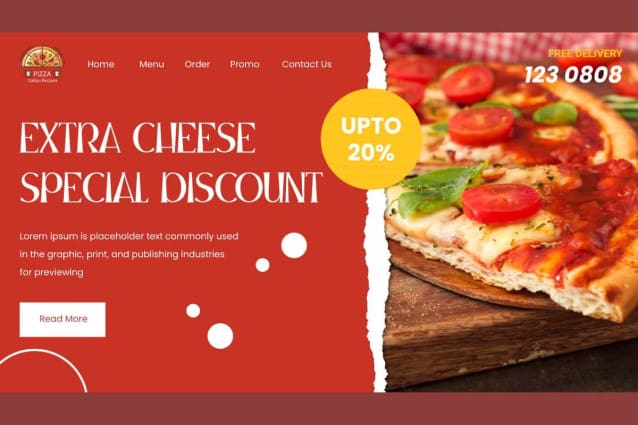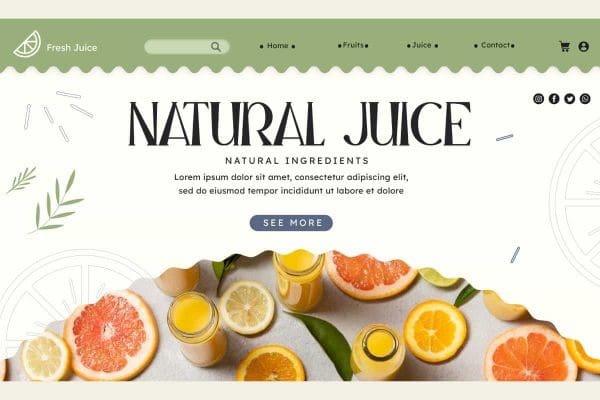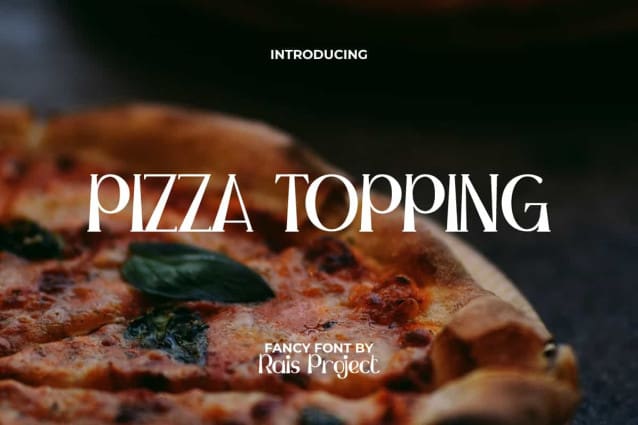
Pizza Topping Font
Pizza Topping Font is a fancy foodist modern serif font with unique looks. This font shape can make you remember the unique shape of pizza slices. It will be good for any designs, such as advertisement, billboard, brand image, brochure, cover, custom design, invitation, label, menu, poster, product packaging, quote, title, stationery, web, and more!